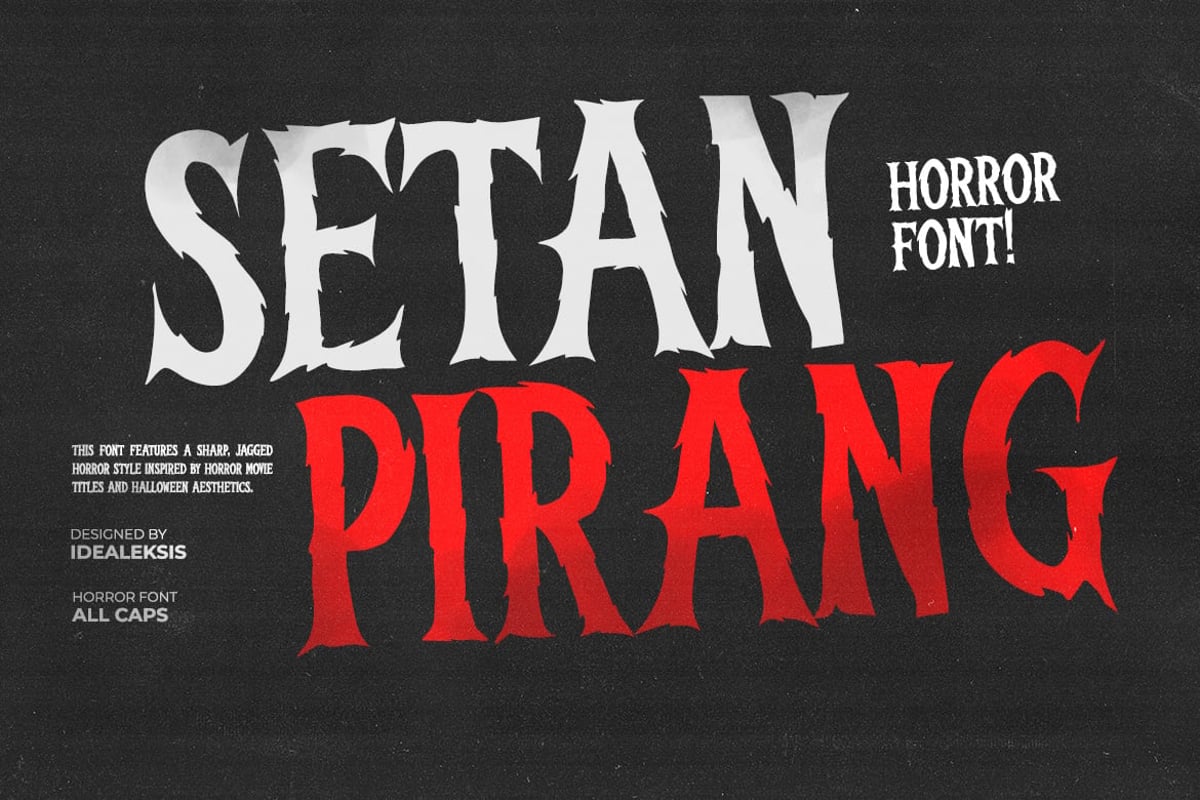
Setan Pirang - Horror Font
Unleash terror with Setan Pirang - a razor-sharp horror display font that brings nightmares to life. This jagged horror typeface draws inspiration from classic horror movie titles and Halloween aesthetics. Its aggressive strokes and eerie style create an instantly terrifying atmosphere that grabs attention and refuses to let go. Perfect for a wide range of spine-chilling projects including horror movie posters, thriller book covers, haunted house promotional materials, dark branding concepts, an...